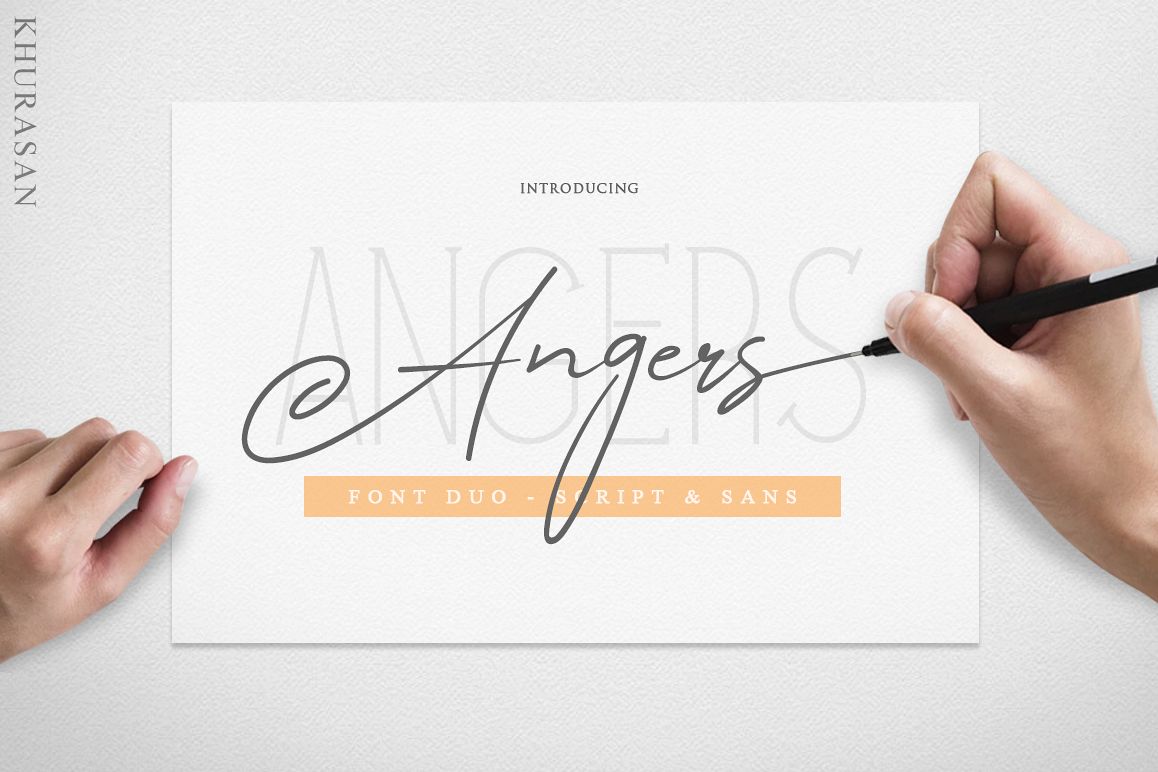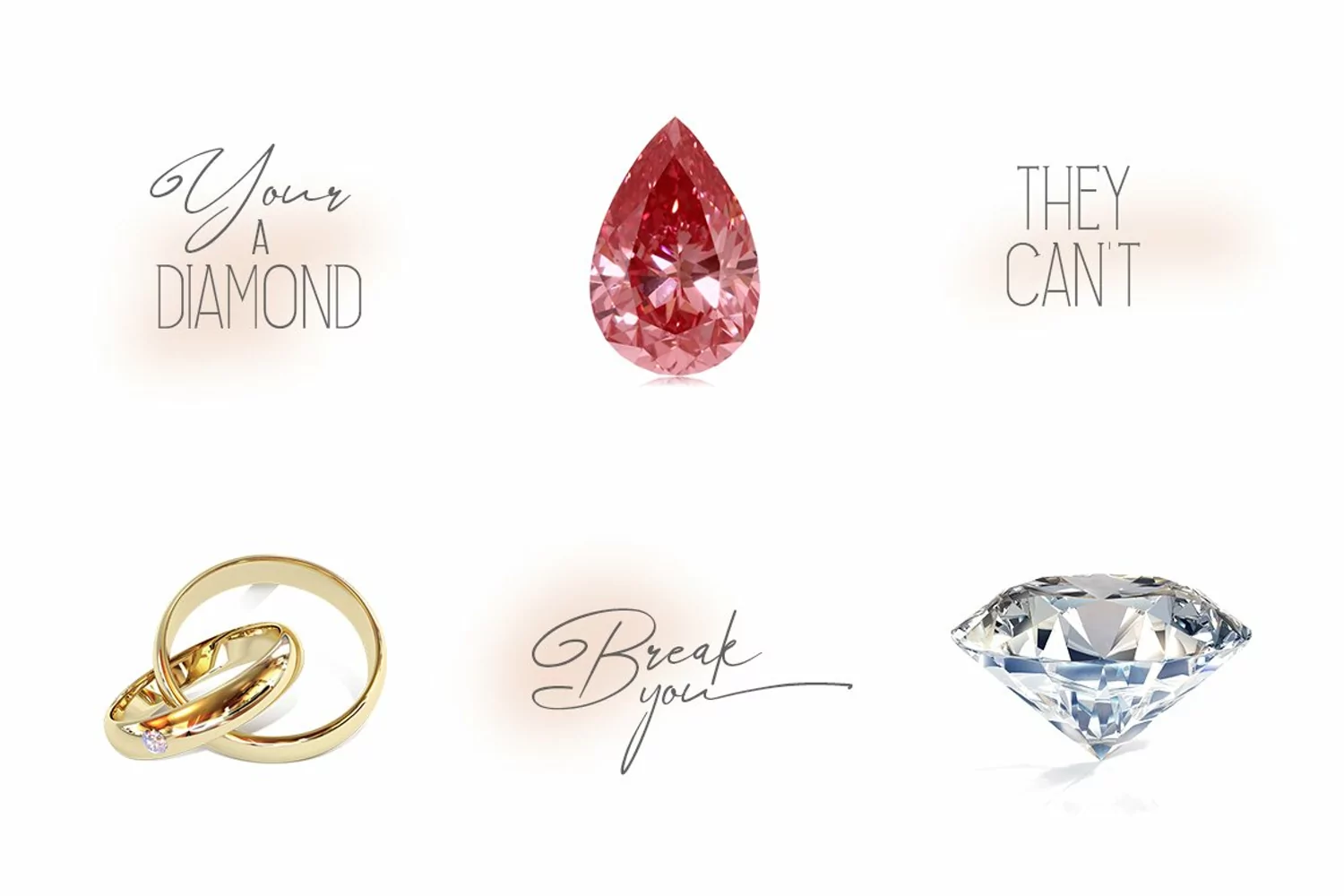
Introducing the
Angers Script Font Duo, a handwriting script and sans nice font type.
Angers font it’s perfect for namecard, poster, logo, magazine, cover, banner, tshirt and headers, or even large-scale artwork...
Features:- OpenType Features
- Stylistic alternates
- Multilingual support ÀÁÂÃÄÅÇEÈÉÊËIÌÍÎÏNÑOØÒÓÔÕÖUÙÜÚÛWYÝŸ?ŸÆ
- Alternates character with number